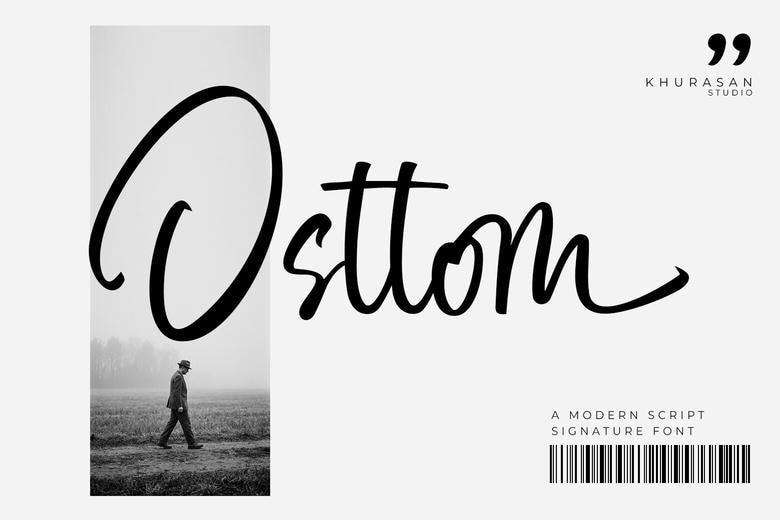
Osttom Font
Osttom is a script handwriting font with a natural brush effect, designed to show the beauty of real hand-lettering. Each stroke looks lively, smooth, and full of personality. This font adds a genuine handwritten charm, giving your designs a warm, stylish, and high-quality look.
Osttom is great for logos, branding, product packaging, quotes, social media posts, wedding designs, and other creative projects. It gives your work a personal and artistic touch that stands out.
Osttom Handwritten Script Font